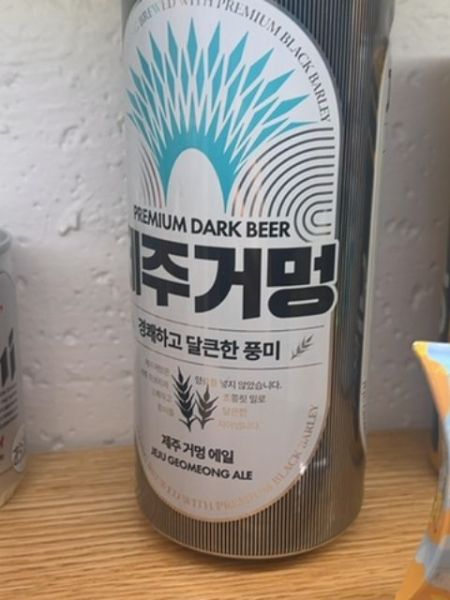
Jeju Geomeong Ale
A premium dark beer brewed with black barley.
South Korea
The typography combines bold, sans-serif fonts for the product name, emphasizing clarity and modernity. The use of both English and Hangul characters provides an international appeal and cultural authenticity. The arrangement is balanced and complements the geometric design elements.
The packaging features a tall can with a glossy metallic finish. A central emblem showcases stylized barley motifs with contrasting black and teal colors, giving it a sleek and modern look.
- Brewed with premium black barley.
- Offers a sweet and deep aroma.
- Inspired by the volcanic landscape of Jeju Island.